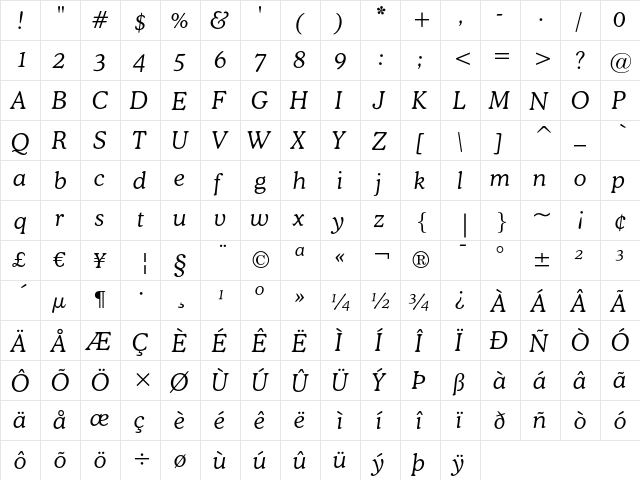
Bitstream Cooper Light Italic
Design Context for Bitstream Cooper Typeface
Bitstream Cooper is a composed and adaptable typeface that performs quietly and consistently across a wide range of design contexts. The slanted form adds forward momentum and visual energy. The delicate stroke weight brings airiness and refinement to layouts.
Pro Tip: Use Bitstream Cooper for emphasis, pull quotes, and subheadings where its slanted energy can add rhythm to the layout.